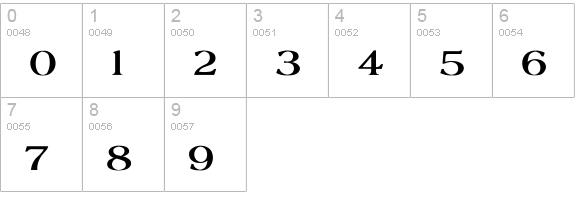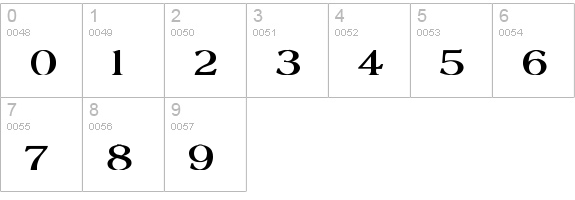
Agate Bold is a strong, high-contrast variant in the Agate typeface family \xE2\x80\x94 well suited to headlines, attention-grabbing titles, and strong calls-to-action.
Agate Bold is a striking and versatile font that commands attention with its bold and powerful presence. Its clean lines and sharp angles give it a modern and sophisticated look, making it perfect for a wide range of design projects. Whether you're creating posters, headlines, logos, or branding materials, Agate Bold will make your text stand out with its strong and impactful style. The best part? Agate Bold is available for free download at FontsMarket.com. This means you can easily access this high-quality font without any cost, making it a valuable addition to your typography collection. Don't miss out on the opportunity to enhance your designs with the bold and dynamic aesthetic of Agate Bold. Download it today and take your projects to the next level!